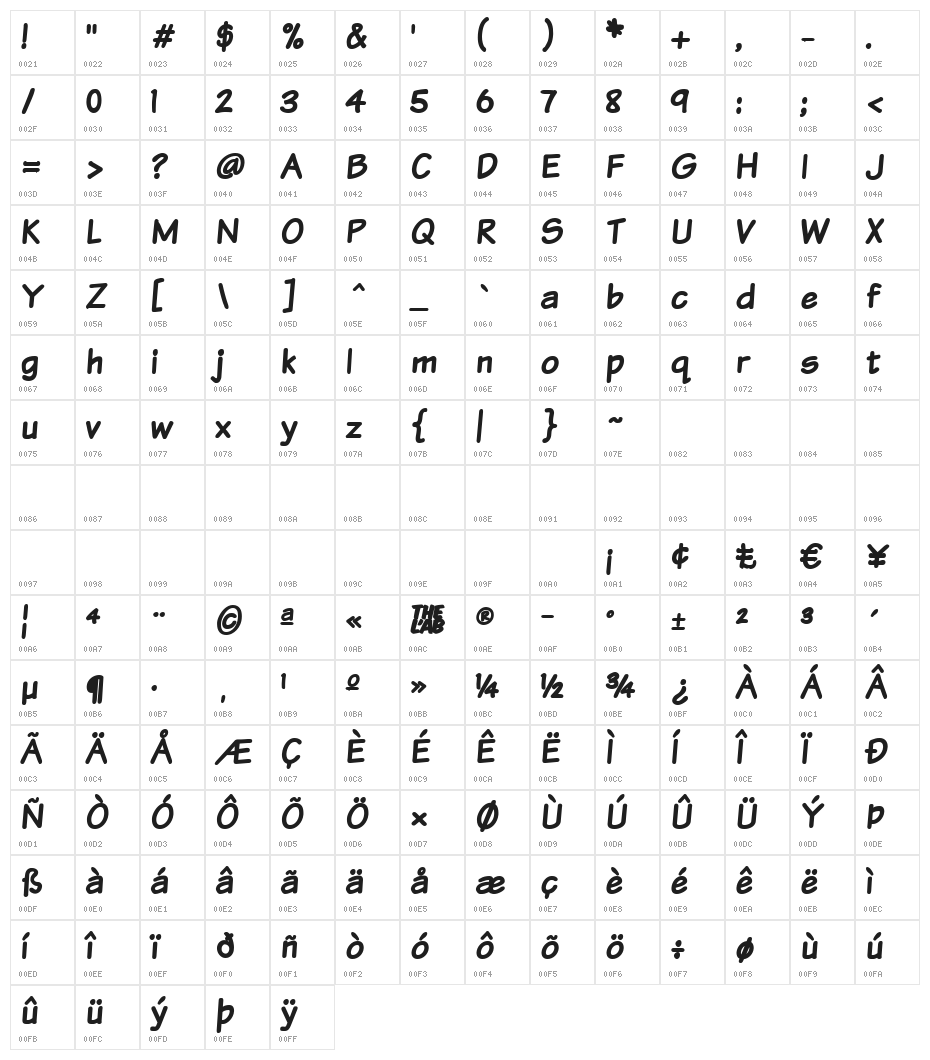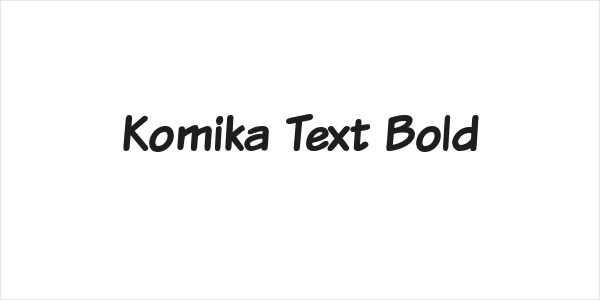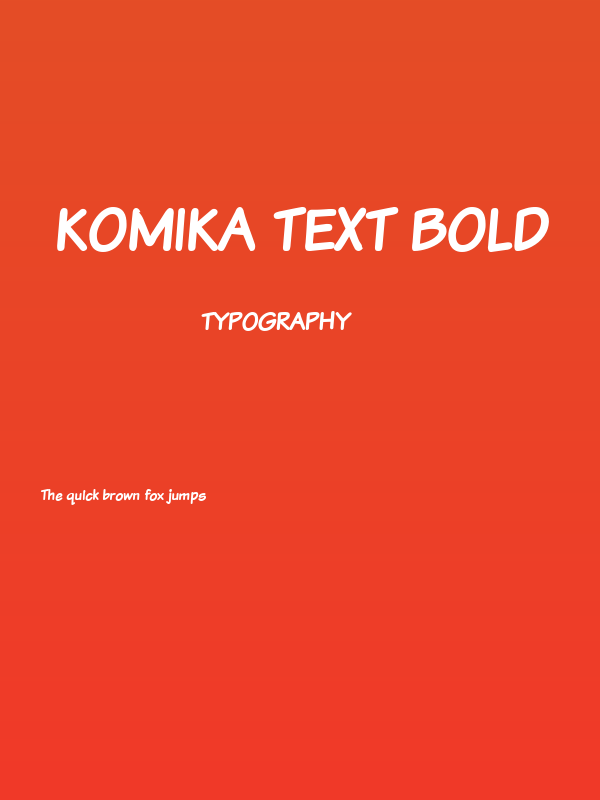
Komika Text Bold Font
Komika Text Bold Description
This font features a playful and bold style, characterized by its rounded and slightly irregular letterforms. The uppercase and lowercase letters maintain a consistent thickness, giving it a cohesive look. The numbers and special characters follow the same design principles, ensuring uniformity across all glyphs. Its boldness and informal style make it suitable for projects that require a fun and approachable aesthetic. The font's rounded edges and smooth curves contribute to its friendly appearance, making it ideal for children's books, comic strips, and playful branding.
| Proposed Projects | Ideal for children's books, comic strips, playful branding, and informal posters. |